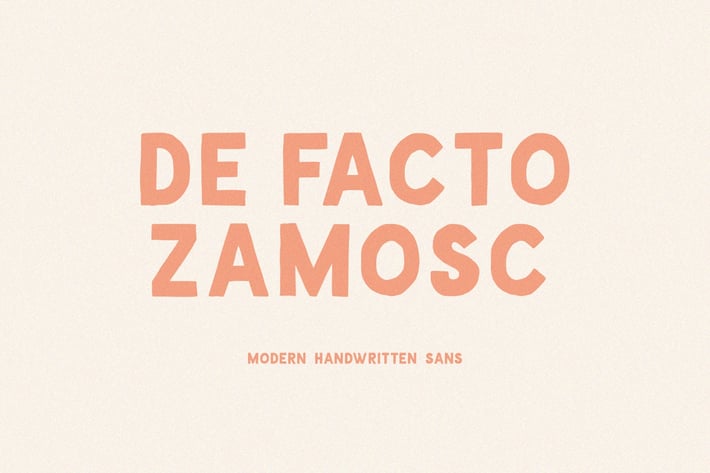
De Facto Zamosc Font
De Facto Zamosc Type Features:
- Numerals & Punctuations
- Suitable for Headlines, Logotypes, Signs, Posters, Letterhead, T-Shirt and many more.
- Support Multilingual Language for western europe